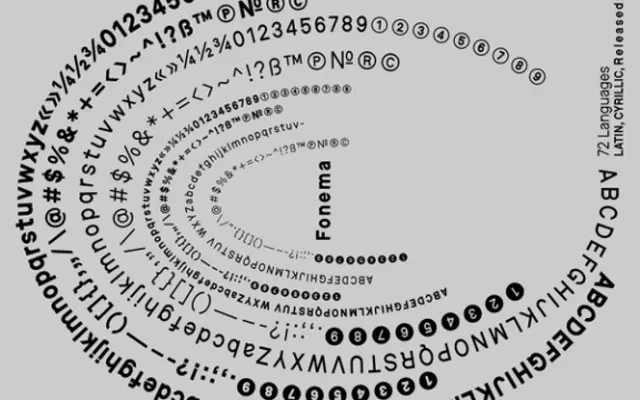
Fonema
A four-weight sans by Anne Büttner covering Latin and Cyrillic across 72 languages, with a thematic grounding in phonetics and sound systems.
Designed by Anne Büttner and sold through Brownfox, Fonema spans Light to Bold in a clean, text-facing register suited to extended setting. The family covers 72 languages across Latin and Cyrillic scripts, making it a practical choice for multilingual publishing or editorial work. Its conceptual framing around phonemes and linguistic abstraction gives it a considered identity without overreaching in formal terms.
The specimen and thematic focus on phonetics suggest a text-oriented humanist sans; the four-weight range without condensed or italic variants points to a utility-focused, reading-oriented design.